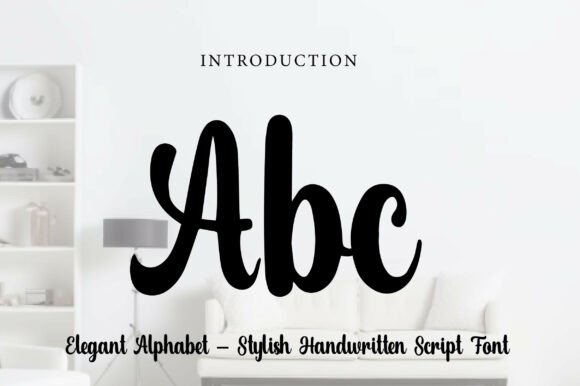
Elegant Alphabet Font: Elevate Your Design with Bespoke Elegance
In the world of typography, few fonts capture the essence of luxury and sophistication as effortlessly as Elegant Alphabet. This stylish handwritten script is designed to bring a touch of bespoke grace to your personal and professional projects, setting them apart with its unique charm and character. With its tall, rhythmic ascenders and smooth, flowing loops, Elegant Alphabet is the perfect choice for those who crave a high-end aesthetic in their designs.
The Characteristics of Elegant Alphabet
Elegant Alphabet boasts a distinctive “modern-boutique” soul, characterized by its balanced weight and fluid strokes. The font’s tall ascenders and flowing loops evoke the elegance of high-end stationery, while its smooth lines and curves ensure a sophisticated and refined appearance. Whether you’re designing luxury event invitations, artisanal lifestyle branding, or personalized home décor signage, Elegant Alphabet provides the perfect blend of style and sophistication.
Applications of Elegant Alphabet
The versatility of Elegant Alphabet makes it an excellent choice for a wide range of design applications. Some of the most popular uses for this elegant font include:
- Luxury Event Invitations: Make a lasting impression with bespoke wedding invitations, gala invitations, or other high-end event announcements that exude elegance and sophistication.
- Artisanal Lifestyle Branding: Elevate your brand with a unique and stylish font that captures the essence of luxury and refinement, perfect for high-end product labels, packaging, and marketing materials.
- Personalized Home Décor Signage: Add a touch of bespoke charm to your home with personalized signs, wall art, and decorative accessories featuring Elegant Alphabet.
- Sophisticated Social Media Overlays: Stand out on social media with elegant and refined overlays that showcase your brand’s personality and style.
Why Choose Elegant Alphabet?
With so many fonts available, why choose Elegant Alphabet for your design projects? Here are just a few reasons why this stylish handwritten script stands out:
- Unique Character: Elegant Alphabet boasts a distinctive character that sets it apart from more traditional fonts, ensuring your designs will stand out from the crowd.
- Versatility: From luxury event invitations to social media overlays, Elegant Alphabet is versatile enough to be used in a wide range of design applications.
- High-End Aesthetic: With its tall ascenders and flowing loops, Elegant Alphabet captures the essence of high-end stationery and luxury branding, perfect for those who crave a sophisticated aesthetic.
Tips for Using Elegant Alphabet
To get the most out of Elegant Alphabet, here are a few tips to keep in mind:
- Pair with Neutral Backgrounds: Allow Elegant Alphabet to take center stage by pairing it with neutral backgrounds that won’t compete with the font’s elegant lines and curves.
- Experiment with Colors: While Elegant Alphabet looks stunning in traditional black and white, don’t be afraid to experiment with bold colors and metallic accents to add an extra touch of luxury.
- Use for Headlines and Titles: Elegant Alphabet is perfect for headlines and titles, where its unique character and high-end aesthetic can make a lasting impression.
Elegant Alphabet is a stylish handwritten script that offers a unique blend of sophistication and refinement, perfect for designers and crafters who crave a high-end aesthetic in their projects. With its tall ascenders, flowing loops, and balanced weight, this elegant font is sure to elevate your designs and leave a lasting impression. Whether you’re creating luxury event invitations, artisanal lifestyle branding, or personalized home décor signage, Elegant Alphabet is the premier choice for those who demand the best.